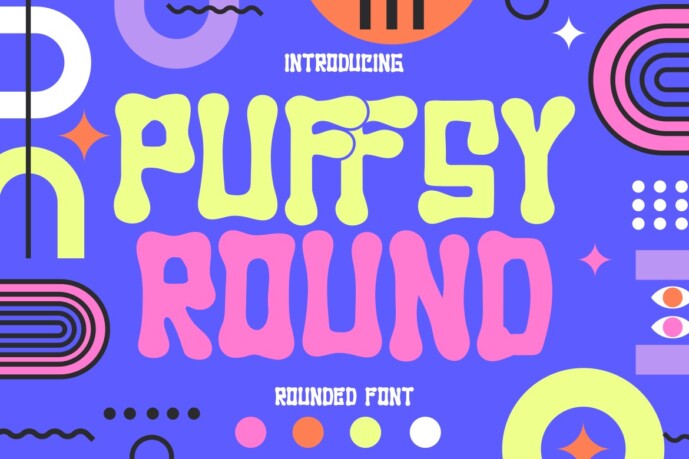
Puffsy Round Font
Puffsy Round – Rounded Quirky Font
Puffsy Round – Rounded Quirky Font is a high-energy display typeface crafted to spark joy in every project. With its bold curves, bubbly terminals, and funky flow, this font exudes personality from every letterform. Inspired by psychedelic pop culture and playful retro aesthetics, Puffsy Round is perfect for anyone looking to create eye-catching visuals that don’t take themselves too seriously.
Each glyph features a soft, inflated silhouette that adds charm and character, making it ideal for children’s designs, colorful branding, or whimsical posters.